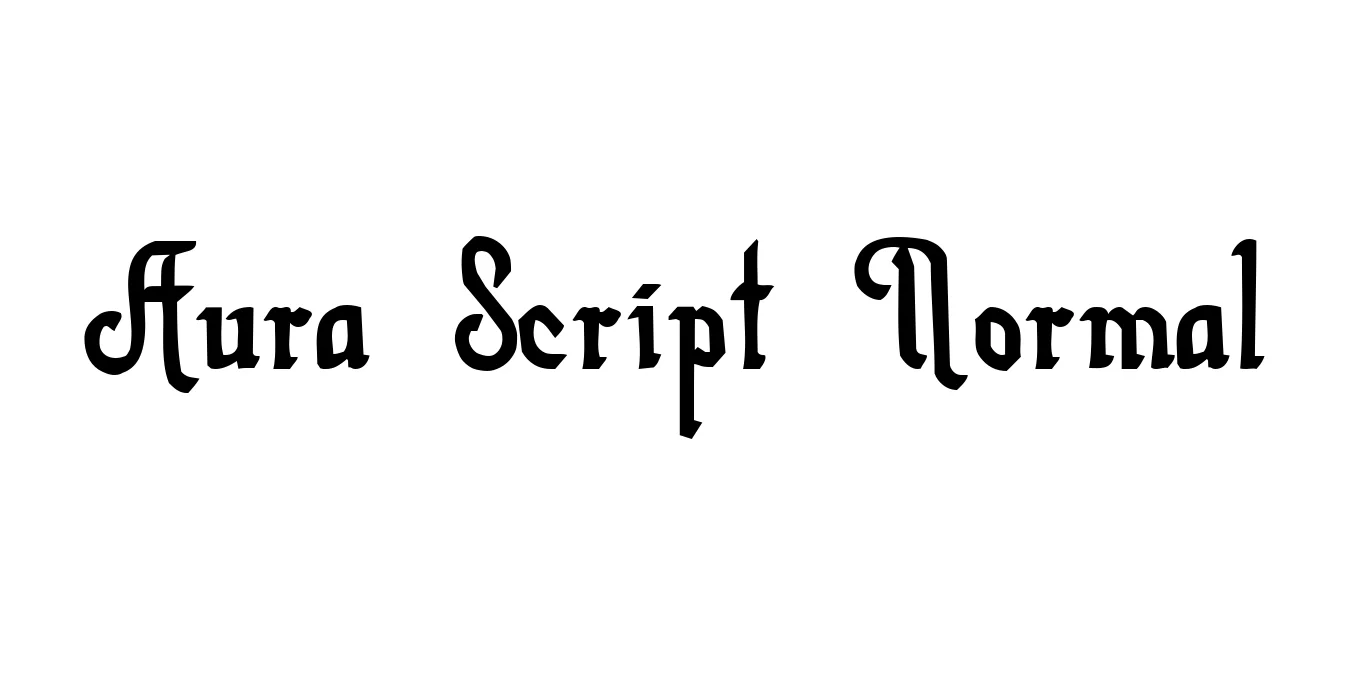
Aura Script Normal
Designed by Letterhend Studio
Aura Script Normal is an elegant and sophisticated calligraphy typeface designed to bridge the gap between traditional hand-lettering and modern digital design. It features fluid, rhythmic strokes and carefully crafted ligatures that provide a natural, organic feel to any layout. Developed with a focus on grace and legibility, this font is perfect for creators looking to add a touch of artisanal quality to their professional projects.
The typeface is characterized by its expressive flourishes and balanced character spacing, making it highly versatile for both print and digital media. From high-end branding to intimate stationery, Aura Script Normal offers a timeless aesthetic that resonates with luxury and personal connection. Its clean yet artistic structure ensures that it remains readable while still conveying a strong sense of personality and style.
Aura Script Normal Best Uses
Perfect for elegant invitations, place cards, and save-the-date notes.
Excellent for luxury logos, fashion branding, and boutique signage.
Adds a sophisticated touch to magazine headlines and pull-quotes.
Ideal for cosmetic, perfume, and artisanal food product labels.